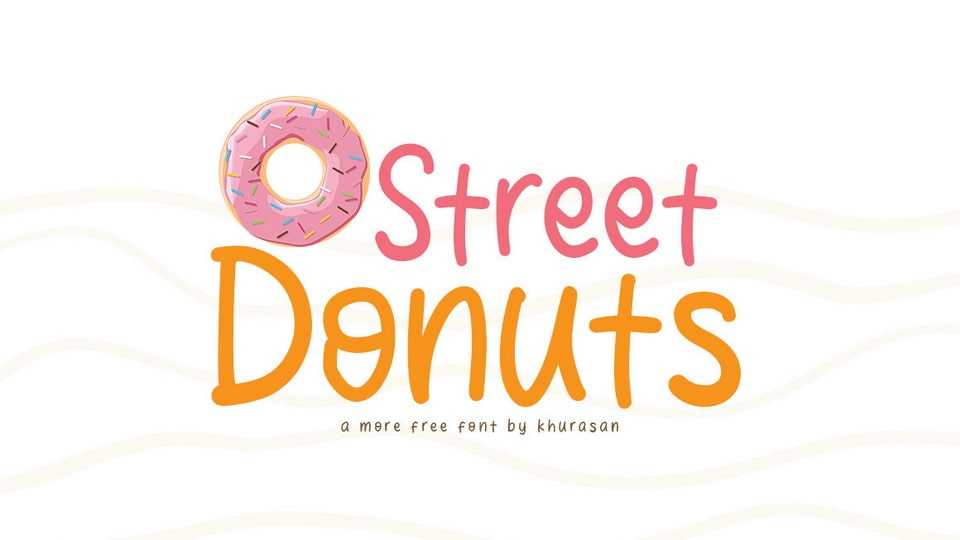
Street Donuts Font › Fontesk – Fonte Grátis
Download Street Donuts font, a delightfully simple and comic-inspired handwritten typeface that brings the playful essence of cartoons to life. Street Donuts font is perfect for projects that require a friendly and approachable vibe.